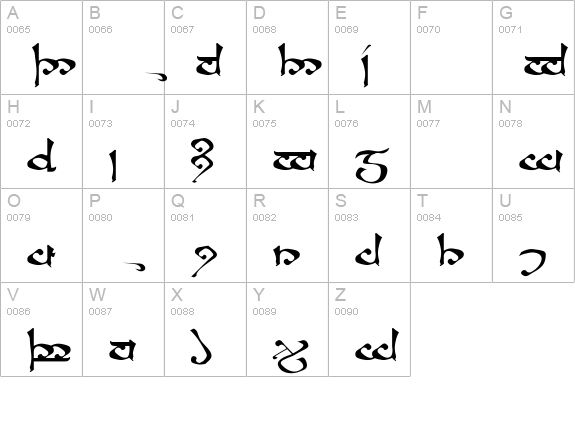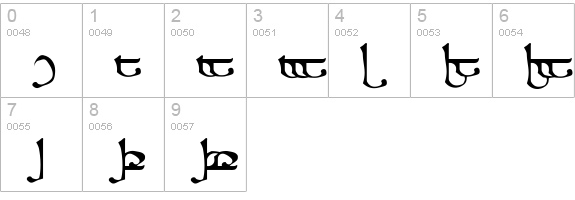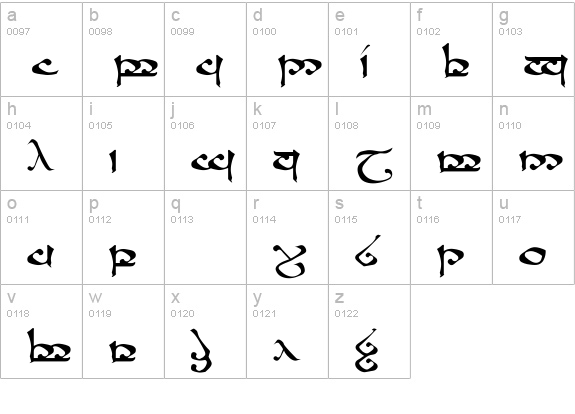
Moroma Font Details
Moroma font is a modern and stylish typeface that exudes elegance and sophistication. With its sleek lines and versatile design, Moroma is the perfect choice for a wide range of projects, from branding to web design to print materials. This font features a unique blend of classic and contemporary elements, making it suitable for both professional and creative endeavors. What sets Moroma font apart is not only its aesthetic appeal but also its accessibility. Unlike many other premium fonts, Moroma is available for free download at FontsMarket.com. This means that you can easily incorporate this stunning font into your projects without breaking the bank. Whether you're designing a logo, creating a poster, or crafting a website, Moroma font is sure to elevate your work and leave a lasting impression. Download Moroma font today from FontsMarket.com and unleash its beauty and versatility in your designs. Let Moroma be the perfect addition to your typographic toolkit, and watch as your projects come to life with style and sophistication.